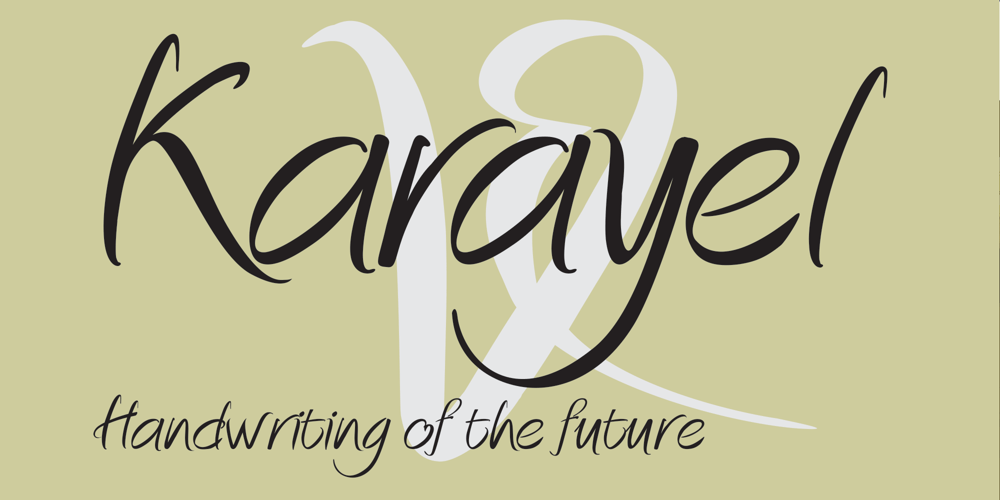
Karayel Handwritten
Karayel Handwritten font
Karayel Handwritten Font Family was designed by Sebahattin Kayış, Erdoğan Karayel and published by Tatbikililer. Karayel Handwritten contains 1 styles and family package options. Erdogan Karayel, a master in graphic arts and a cartoon artist, has long dreamed of transforming characters made up of his own handwriting into fonts. This dream has come true with the technical support of Karayel’s school friend Sabahattin Kayış, a graduate of the Istanbul School of Applied Fine Arts (Marmara University Faculty of Fine Arts). The biggest problem of handwritten fonts in the font world is the difficulty of reading in long texts due to their curved and flexible letters that create spacing problems when used side by side. The “Karayel Calligraphy”, on the contrary, is created as a solution to this problem. It’s a font that is sufficiently fluid, visually satisfying and easy to read. In particular, a lot of effort is made to ensure the utmost harmony between the character’s spaces. The “Karayel Calligraphy” font is now available for download.